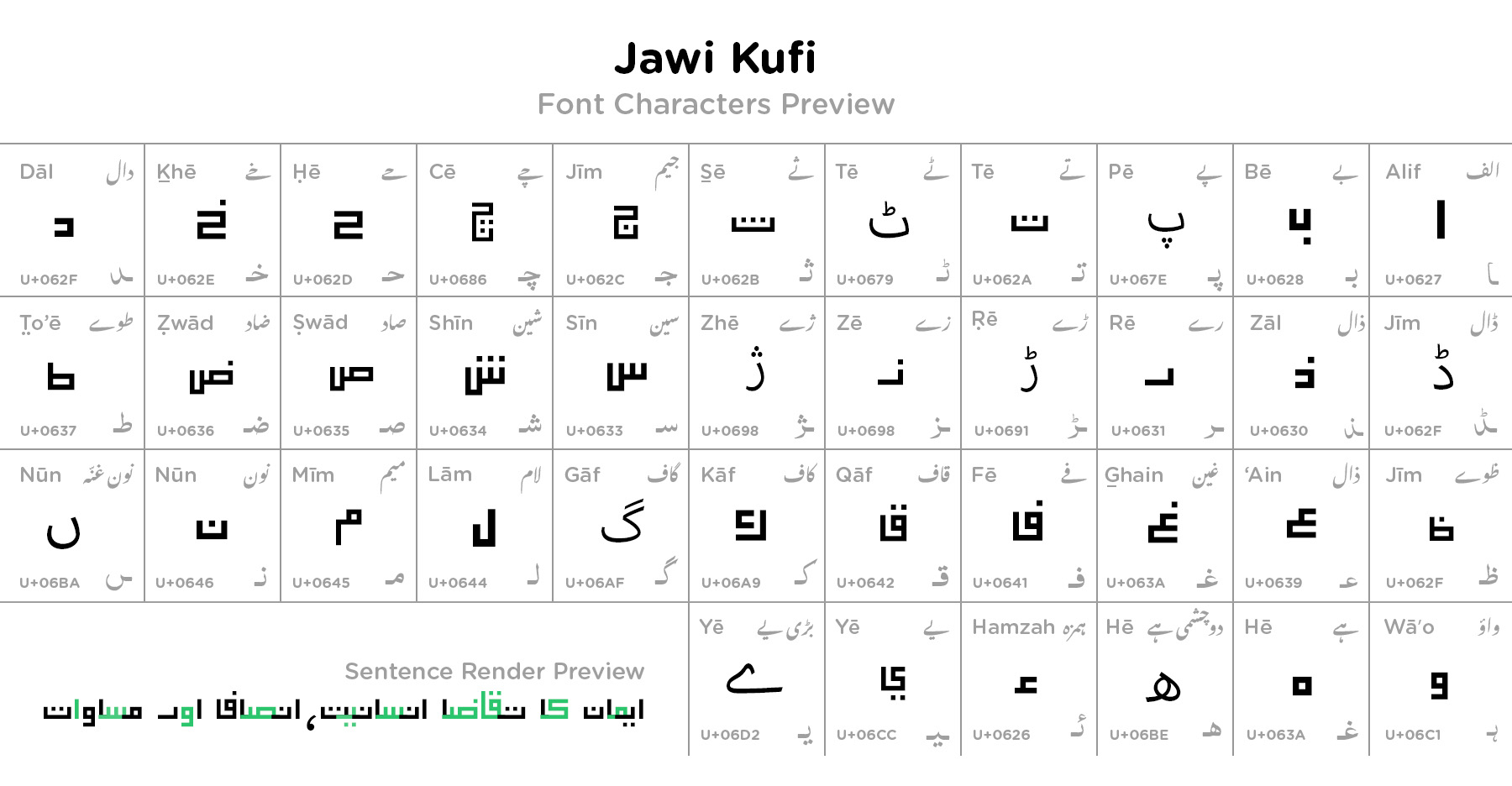
Jawi Kufi was designed by Zairochess Psudo and was launched on 13th April, 2021. It is a pure square Kufic font with well-aligned characters. The font has a compact baseline that shows all the letters are arranged in a proper symmetrical order. It also combines classical Arabic script with contemporary design elements. With a constant stroke width, the font has sharp angles and the letters of the typeface are not condensed, rather they are wider. It looks like a traditional tech font due to its appearance and is popular for its clean and clear design.
Having the characters set of 171 and 175 glyphs count, it can support different languages including symbols, Latin, and Arabic. Furthermore, Jawi Kufi is a medium-weight font appropriate for different applications, incorporating personal as well as commercial use. Available in the TTF (TrueType Font) format, the font is compatible with majority of the operating systems. Moreover, it supports many Unicode blocks including Basic Latin, Latin-1 Supplement, Arabic Supplement, Arabic, Specials, Arabic Presentation Forms-A, and Arabic Presentation Forms-B.